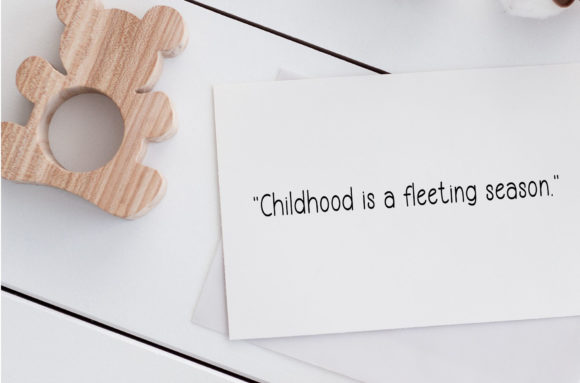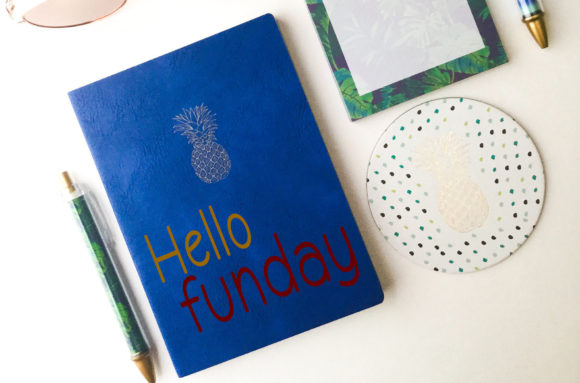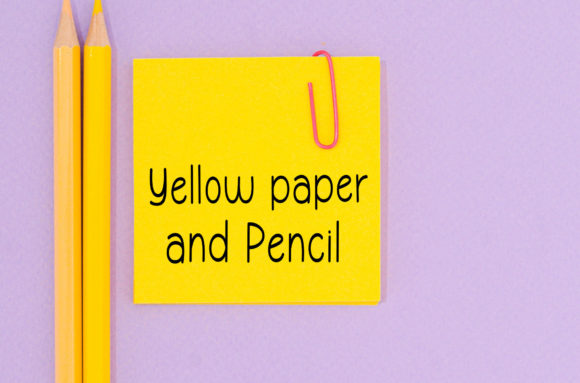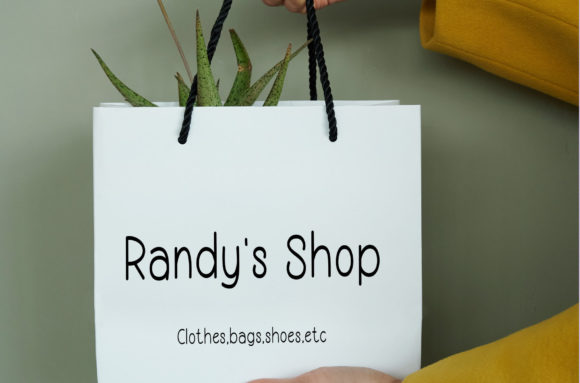
Introducing Good Mood Font: The Perfect Addition to Your Children’s Designs
Are you a designer or crafter looking for a font that can add a playful touch to your children’s themed designs? Look no further than Good Mood Font! This adorable handwritten font is specifically designed to bring a smile to your audience’s faces, making it an ideal choice for projects aimed at kids.
What is Good Mood Font?
Good Mood Font is a cute and playful handwritten font that is perfect for creating fun and engaging designs for children. Its playful and carefree vibe makes it an excellent choice for a wide range of projects, from children’s books and educational materials to posters, flyers, and more.
Key Features of Good Mood Font
- Playful and Handwritten Style: Good Mood Font boasts a unique, handwritten style that is both playful and charming. Its irregularities and quirks give it a personal touch that will make your designs stand out.
- Suitable for Children’s Designs: The font’s playful and youthful vibe makes it an ideal choice for designs aimed at children. It’s perfect for creating engaging and interactive content that kids will love.
- Works Well with Bright Colors: Good Mood Font is designed to work beautifully with bright and vibrant colors, making it perfect for creating lively and colorful designs.
- Easily Readable: Despite its playful style, Good Mood Font is easily readable, making it suitable for use in a wide range of projects, from titles and headings to body text.
How to Use Good Mood Font in Your Designs
Good Mood Font is incredibly versatile and can be used in a wide range of design projects. Here are some ideas to get you started:
- Children’s Books: Use Good Mood Font to create engaging and interactive children’s books that will delight kids and parents alike.
- Posters and Flyers: Add a playful touch to your posters and flyers with Good Mood Font, making them perfect for promoting children’s events, products, or services.
- Educational Materials: Use Good Mood Font to create educational materials, such as worksheets, activity sheets, and educational posters, that are both fun and engaging.
- Digital Products: Good Mood Font is also perfect for digital products, such as apps, games, and websites aimed at children.
Tips for Pairing Good Mood Font with Other Design Elements
To get the most out of Good Mood Font, here are some tips for pairing it with other design elements:
- Bright Colors: As mentioned earlier, Good Mood Font works beautifully with bright and vibrant colors. Try pairing it with colors like pink, blue, yellow, and green to create a lively and playful design.
- Fun Illustrations: Good Mood Font is perfect for pairing with fun and playful illustrations. Try using it with illustrations of animals, cartoon characters, or other whimsical designs.
- Textures and Patterns: Add an extra layer of depth to your design by pairing Good Mood Font with textures and patterns. Try using it with subtle textures or playful patterns like polka dots or stripes.
Good Mood Font is a beautiful and playful handwritten font that is perfect for children’s themed designs. Its unique style and easily readable format make it an excellent choice for a wide range of projects, from children’s books and educational materials to posters, flyers, and more. With its ability to work well with bright colors and fun illustrations, Good Mood Font is sure to bring a smile to your audience’s faces. So why not give it a try and see how it can add a playful touch to your designs?